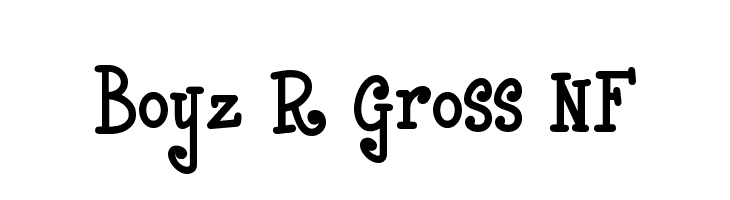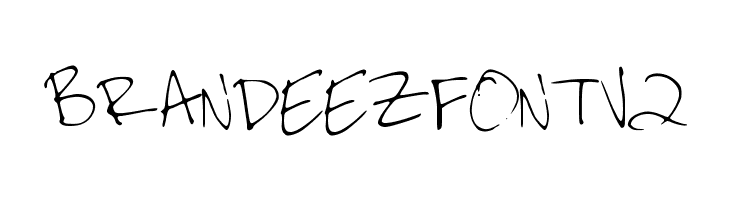
A playful and whimsical font with bold, rounded letterforms and a quirky aesthetic.
A playful, bold font with a shadow effect and whimsical, cartoonish style.
A dynamic, handwritten font with irregular strokes and a playful style.
A tall, narrow handwritten font with a clean, minimalist style.
A dynamic, edgy handwritten font with irregular strokes and a chaotic appearance.
A playful, chaotic handwritten font with bold, irregular uppercase letters.